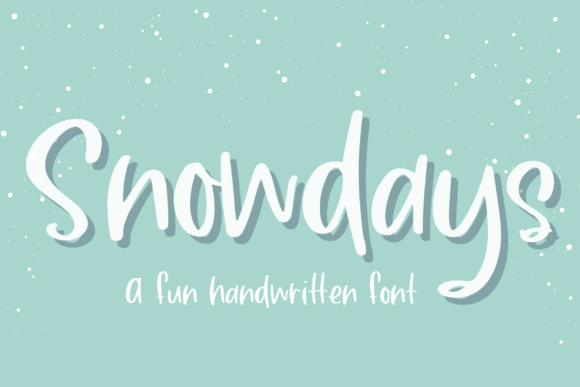
Snowdays Font
This cute handwritten font is perfect for fun logos, greeting cards, t-shirt designs, stickers, social media, and any craft or project for that hand-made look.